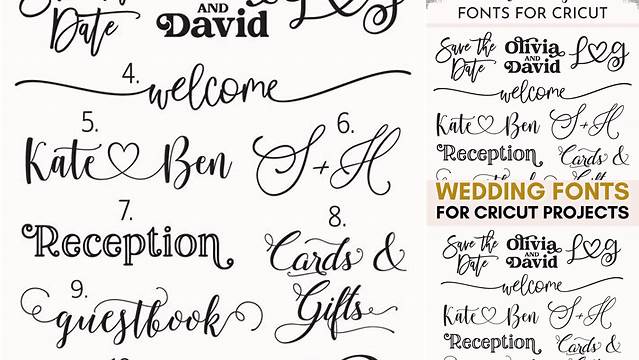
Free Cricut Fonts For Wedding Signs: Top Picks
Hey there, creative folks! Planning a wedding? Congrats! And if you're DIY-ing some of your wedding decorations, like signs, then you're in the right place. Cricut machines are amazing for crafting, but finding the perfect font can be a real quest. Fear not, because I've got you covered! This guide is all about the best free Cricut fonts for wedding signs. We're diving into a treasure trove of beautiful fonts that won't cost you a penny. That's right, totally free! Get ready to create stunning wedding signs without breaking the bank. We'll explore different font styles, from elegant scripts to modern serifs, ensuring you find the perfect match for your wedding theme. So, grab your favorite beverage, settle in, and let's get started on this font-tastic journey!
1. Elegant Script Fonts for Wedding Signage
Alright, let's kick things off with some elegant script fonts. These fonts are perfect for adding a touch of sophistication and romance to your wedding signs. They often mimic beautiful handwriting, which can make your signs feel more personal and heartfelt. When choosing a script font, consider the overall style of your wedding. Is it classic, modern, rustic, or bohemian? The script font you choose should complement your theme. For a classic wedding, you might lean towards a more traditional script with elegant flourishes. For a modern wedding, a cleaner, more minimalist script might be more appropriate. Keep in mind readability, especially if your signs will be viewed from a distance. The script should be easy to read, even if it has decorative elements. Play around with different script fonts in your Cricut Design Space to see how they look with your wedding wording. Try out phrases like “Welcome to Our Wedding,” “Mr. & Mrs.,” or the names of the bride and groom. Pay attention to how the letters connect and flow together. Some scripts have beautiful ligatures (connected letters) that can add to the elegance. But make sure the ligatures don't make the text difficult to read. A well-chosen script font can transform a simple wedding sign into a work of art. Don't be afraid to experiment with different font sizes and colors to create a sign that perfectly reflects your style.
2. Modern Calligraphy Fonts for a Chic Wedding
For a more contemporary and chic look, modern calligraphy fonts are the way to go. These fonts often have a hand-lettered feel but with a more streamlined and updated design. They're ideal for couples who want a stylish and on-trend wedding. Modern calligraphy fonts can range from delicate and airy to bold and dramatic. Consider the overall aesthetic you're aiming for. If you want a softer, romantic feel, opt for a font with thinner strokes and graceful curves. If you're going for a bolder statement, choose a font with thicker strokes and more pronounced angles. Modern calligraphy fonts are great for creating visually interesting signs. They can be used for everything from welcome signs to seating charts and even bar signs. When working with these fonts, pay close attention to the spacing between the letters. Because the fonts are often hand-lettered, the spacing may not always be perfect. You may need to manually adjust the letter spacing in your Cricut Design Space to achieve a balanced and pleasing look. Also, think about using these fonts in conjunction with other design elements, such as floral illustrations or geometric shapes, to create a cohesive and visually appealing sign. Modern calligraphy fonts offer a versatile and stylish way to elevate your wedding signage, adding a touch of sophistication and artistry.
3. Free Cricut Fonts with a Rustic Vibe
If your wedding has a rustic theme, you'll want fonts that evoke a sense of warmth, simplicity, and natural beauty. Look for fonts that mimic the look of woodcut letters, handwritten signs, or vintage typography. These fonts often have a slightly distressed or textured appearance, which adds to their charm. Rustic fonts can be incredibly versatile. They can be used on signs made from wood, burlap, or even chalkboard. When selecting a rustic font, consider the overall vibe of your wedding. Is it a barn wedding, a backyard celebration, or a vineyard gathering? Choose a font that complements the setting. For example, a font with a rough, textured appearance might be perfect for a barn wedding, while a slightly more refined font might be better suited for a vineyard wedding. Rustic fonts are also great for adding a personal touch to your signs. You can use them to create signs with hand-drawn elements or handwritten quotes. Experiment with different font sizes and colors to see how they look against different backgrounds. The goal is to create signs that feel inviting, authentic, and in harmony with your wedding's rustic theme. Remember to consider the readability of the font, especially if your signs will be placed outdoors or in a dimly lit setting. Opt for fonts that are easy to read from a distance. A well-chosen rustic font will add a touch of charm and personality to your wedding signage.
4. Serif Fonts: Classic Choices for Wedding Signs
Serif fonts are characterized by small strokes, or serifs, at the end of each letter. They are often associated with tradition, elegance, and readability. Serif fonts are a great choice for wedding signs, especially if you're aiming for a classic or formal aesthetic. When choosing a serif font, consider the overall style of your wedding. For a traditional wedding, you might choose a font with elegant serifs and a slightly formal appearance. For a more modern wedding, you might opt for a cleaner serif font with a more minimalist design. Serif fonts are also incredibly versatile. They can be used for everything from the main text on your welcome sign to the names of the wedding party on your directional signs. When working with serif fonts, pay close attention to the spacing between the letters. Make sure the spacing is even and that the letters are not too crowded together. Also, consider the size of the font and how it will appear on your sign. A larger font size will be easier to read, especially if your sign will be viewed from a distance. Serif fonts are a timeless choice that can add a touch of sophistication to your wedding signage. They are a safe bet if you're unsure which font style to choose, as they are always in style and work well with various themes.
5. Sans-Serif Fonts: Modern and Clean Options
Sans-serif fonts, as the name suggests, are fonts without serifs. They are known for their clean, modern, and minimalist appearance. These fonts are a fantastic option if you're going for a contemporary or sleek wedding theme. Sans-serif fonts are incredibly versatile and can be used in various wedding sign designs. They are particularly well-suited for signs with a lot of text, as they tend to be highly readable. When selecting a sans-serif font, consider the overall style of your wedding. If you want a clean, modern look, choose a font with a simple and geometric design. If you want a more playful and informal feel, you might choose a font with a slightly rounded or softened appearance. Sans-serif fonts are also great for creating visually striking signs. They can be used in combination with bold colors, eye-catching graphics, and creative layouts to create a sign that really stands out. When working with sans-serif fonts, pay attention to the kerning (the spacing between the letters). Ensure that the kerning is consistent and that the letters are evenly spaced. This will help ensure that your sign looks polished and professional. Sans-serif fonts are a great choice for couples who want a modern and stylish look for their wedding signs. They are easy to read, versatile, and can be adapted to various themes.
6. Best Cricut Fonts for Welcome Signs
Your welcome sign is the first impression your guests will have of your wedding, so choosing the right font is crucial. The best fonts for welcome signs are those that are easy to read from a distance and that complement your wedding's overall aesthetic. Consider a combination of fonts. Use a script font for the word